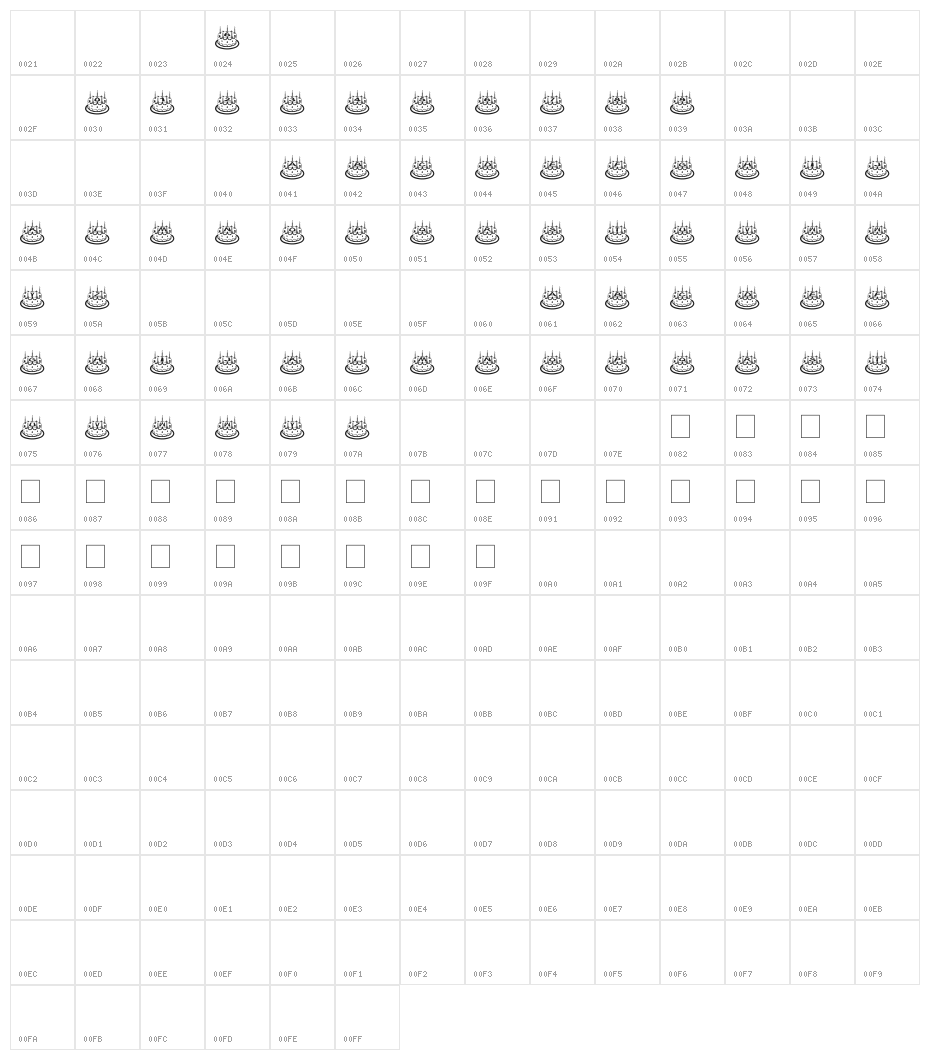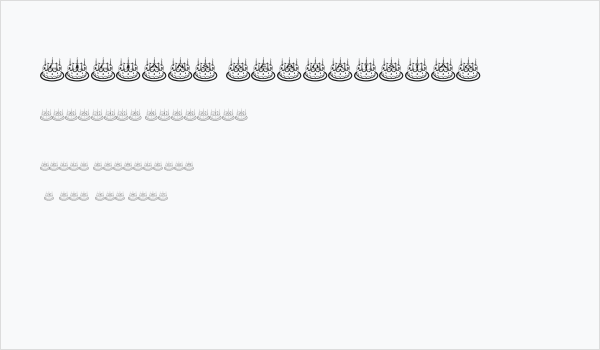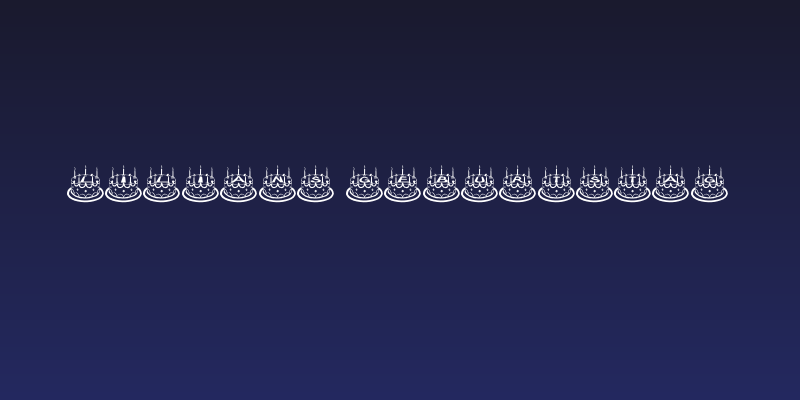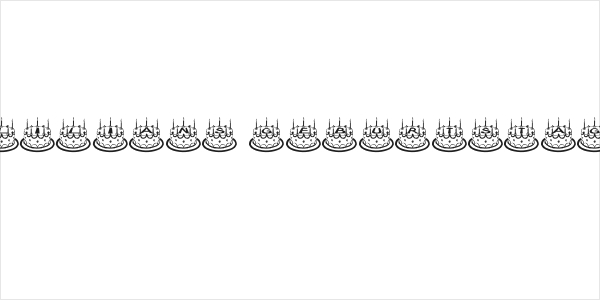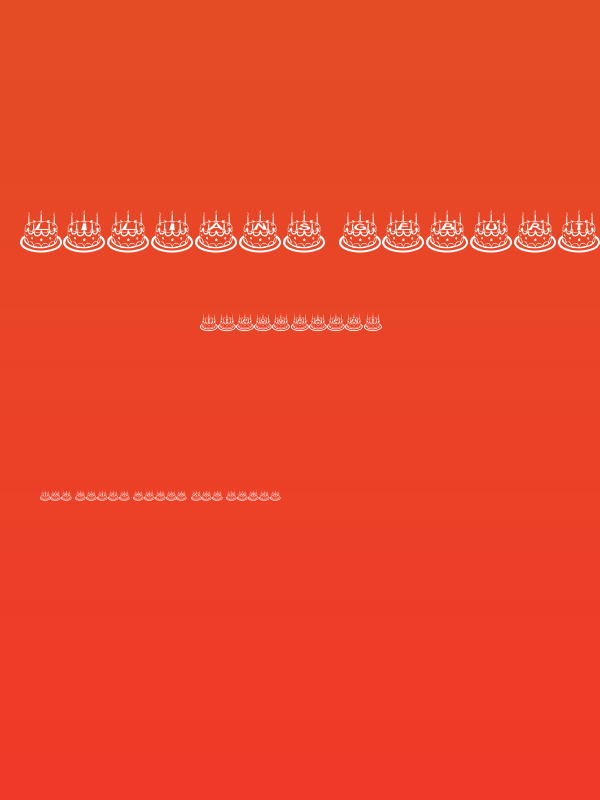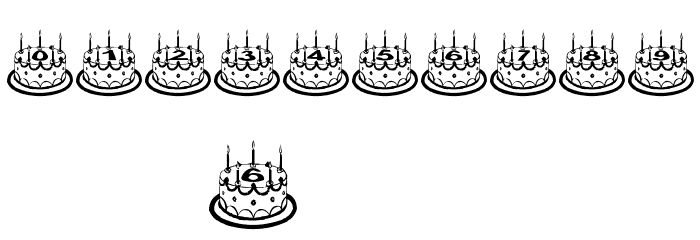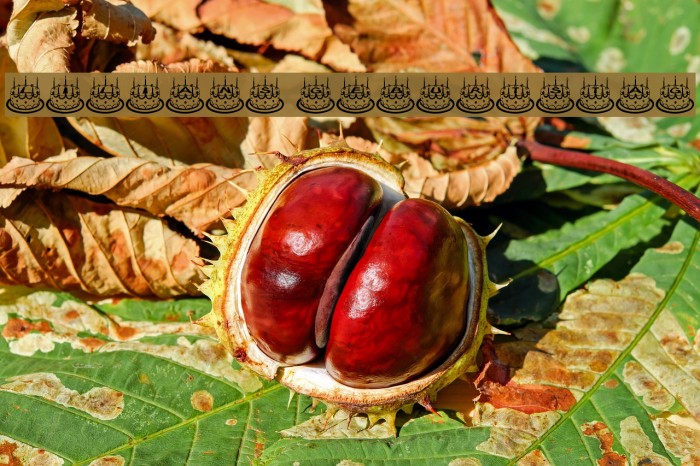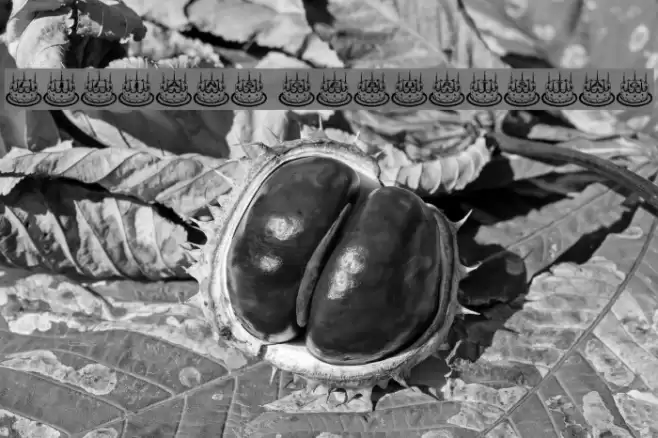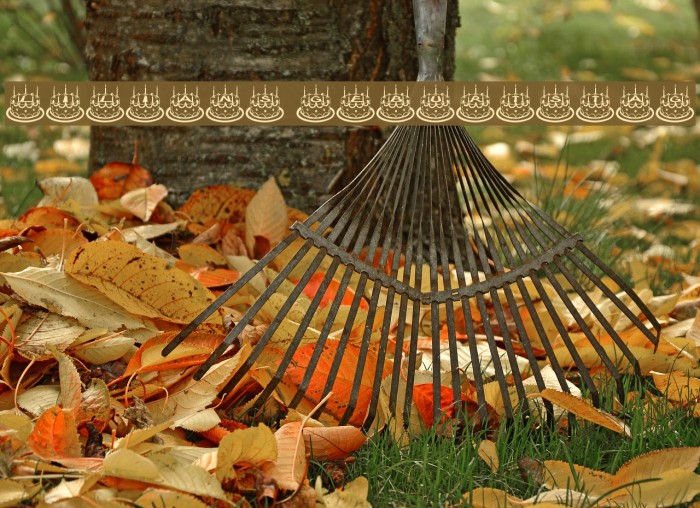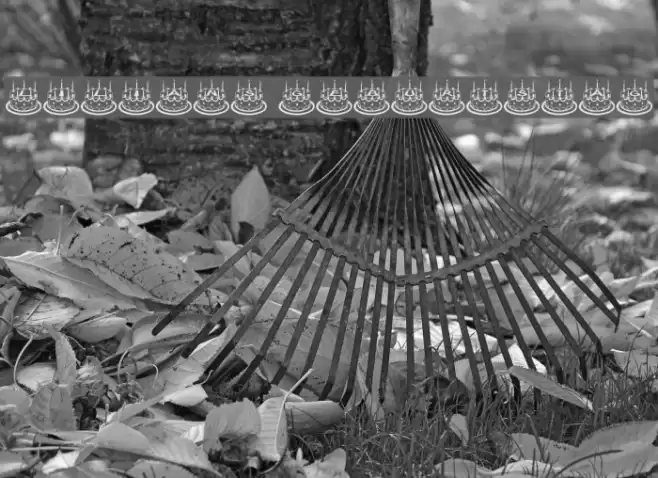
Lilians Geburtstag Font
Lilians Geburtstag Description
A playful, decorative font where each character is displayed on a birthday cake illustration with candles. The characters are bold, rounded, and hand-drawn, giving a festive and whimsical appearance. The font is highly stylized and intended for celebratory or themed contexts.
| Overall Style | Decorative, Playful, Festive |
| Use Case | Headlines, Posters, Invitations, Themed Graphics |
| Proposed Projects | Birthday invitations, party banners, children's event posters, greeting cards, themed social media graphics. |